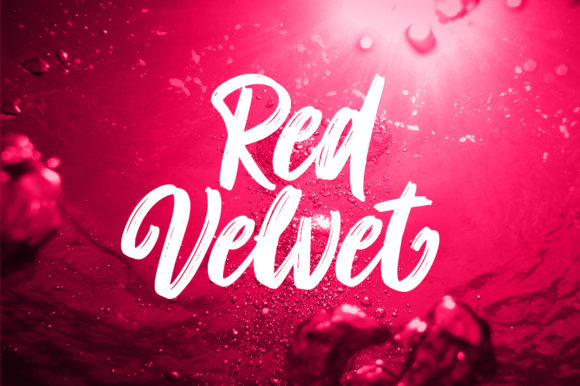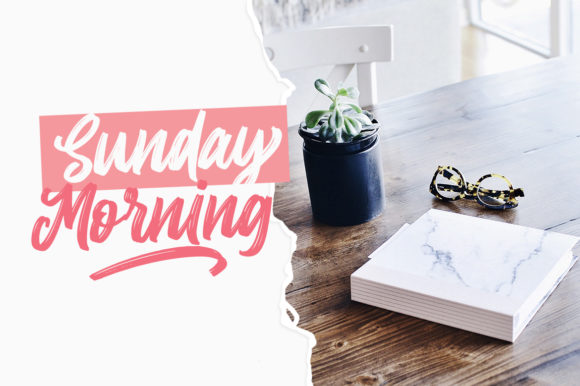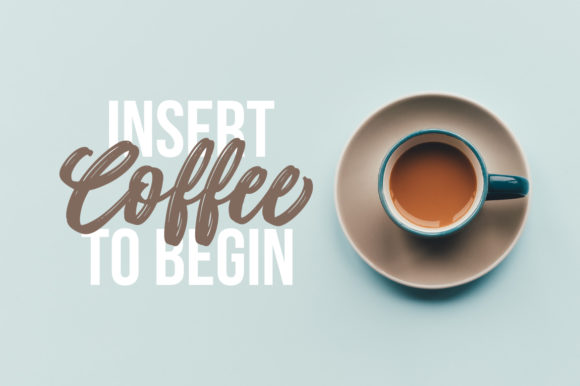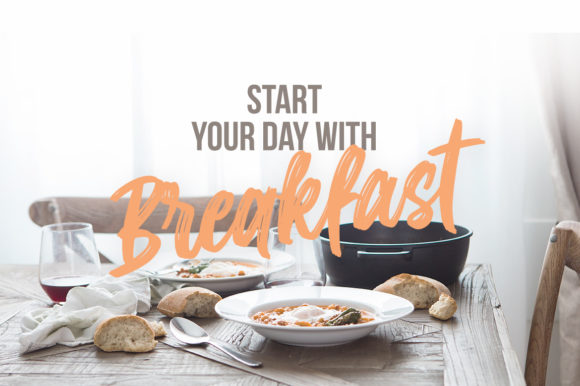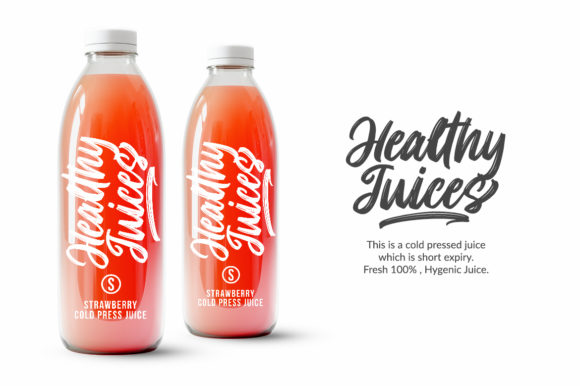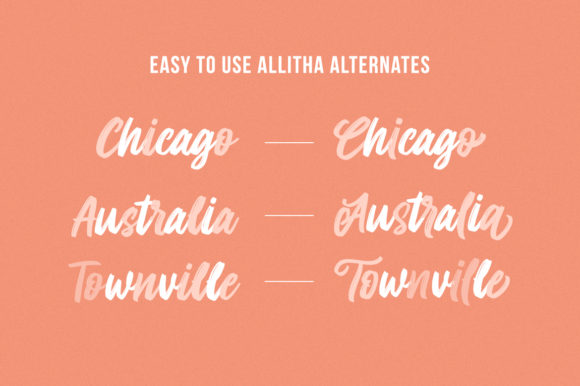
The Ultimate Crafting Font: Allitha Script Font
Have you ever been in the middle of a design project, and suddenly, you’re stuck on finding the perfect font? I certainly have! It was a sunny Saturday morning when I received an urgent message from a client asking for a bold yet personal font for their handmade product labels. The project was due in a few hours, and my mind was a blank. That’s when I stumbled upon Allitha Script Font, and let me tell you, it was love at first sight! 💕
An Honest Review of Allitha Script Font
As a designer, I always look for fonts that can elevate my projects and make them stand out. Allitha Script Font did just that! Here’s what I love about it:
• ✨ Bold yet personal: Allitha has the perfect balance of boldness and elegance, making it suitable for a wide range of design projects.
• ✅ Highly legible: The font is incredibly clear, even at smaller sizes, which is a huge plus for designers.
• 💫 Unique character set: Allitha comes with a variety of glyphs, stylistic alternates, and OpenType features that can add a touch of personality to your designs.
Of course, no font is perfect, and Allitha has a few small quirks:
• 🤔 Limited use in very formal designs: Allitha’s bold and playful nature might not be suitable for very formal or traditional designs.
• ⚠️ Some characters may require manual kerning: As with any script font, you might need to adjust the kerning of certain characters for optimal results.
The Backstory Behind Allitha Script Font
Allitha Script Font was designed with the creative hobbyist in mind. The designer, inspired by traditional crafting and handmade products, aimed to create a font that would be both bold and personal. The result is a beautiful, versatile font that’s perfect for a wide range of design projects.
Can I use Allitha Script Font for my branding? Absolutely! Allitha’s unique character set and bold yet personal feel make it an excellent choice for branding and logo design.
Can I use Allitha Script Font for my social media graphics? Yes, Allitha Script Font is perfect for social media graphics, adding a touch of personality and whimsy to your posts and stories.